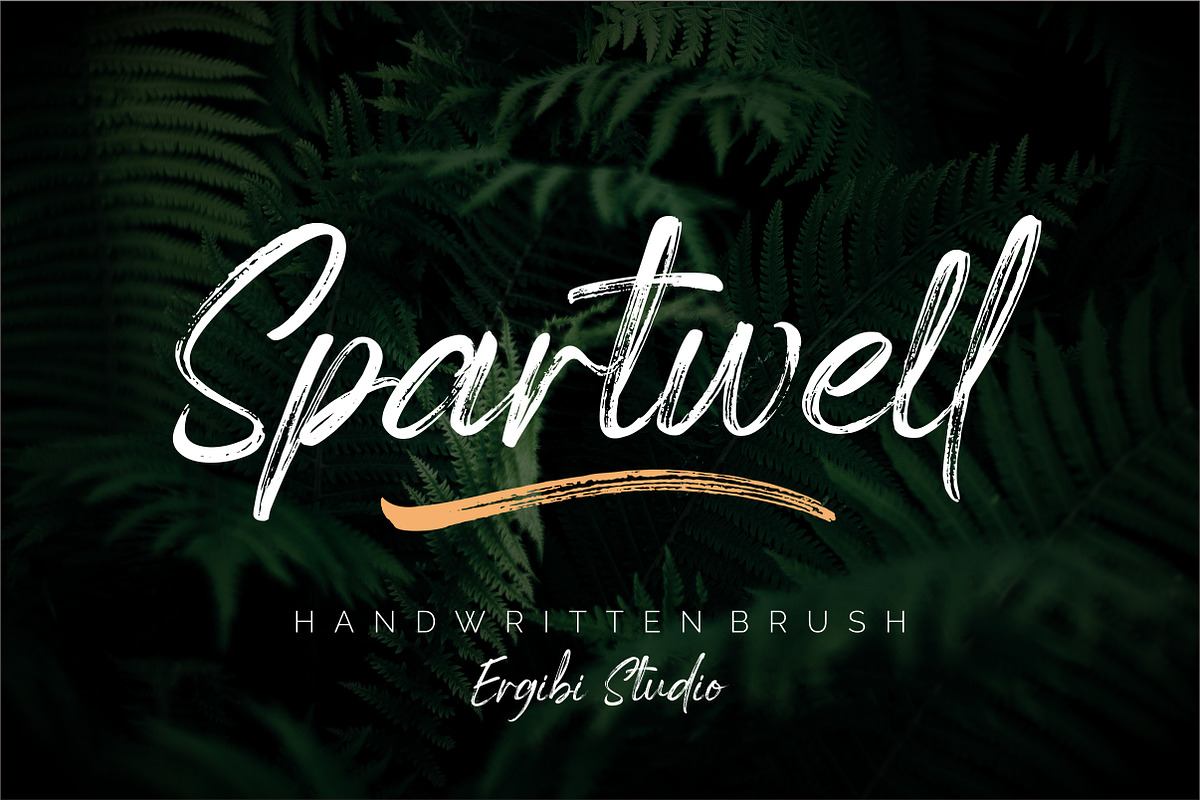
Spartwell | Handwritten Brush Font Free Download
Spartwell | Handwritten Brush Font Free Download is an energetic and expressive typeface that captures the raw, artistic feel of real brush strokes. Perfect for logos, posters, apparel, music artwork, YouTube thumbnails, and street-style branding, Spartwell delivers a bold statement with its hand-painted vibe and edgy attitude.
The font’s dynamic flow and natural texture give it an authentic handcrafted look, making your designs feel personal and full of character. Whether you're designing for a creative brand or a high-impact promo, Spartwell | Handwritten Brush Font Free Download brings energy and individuality to every word.